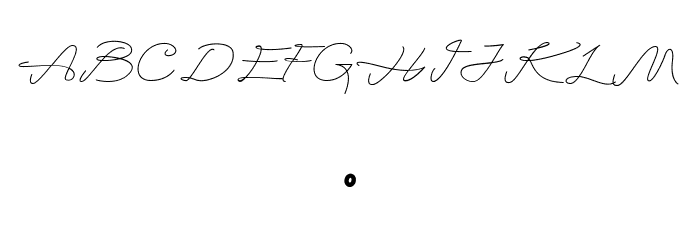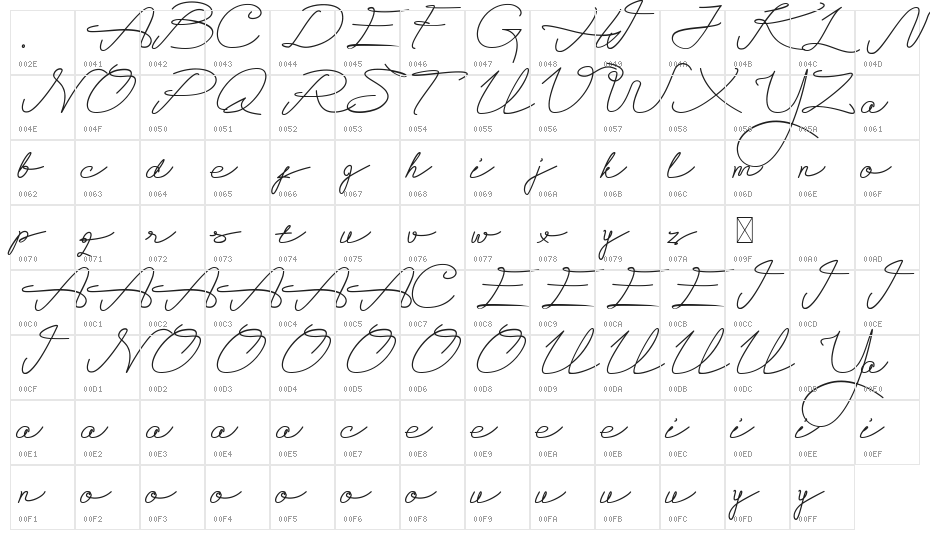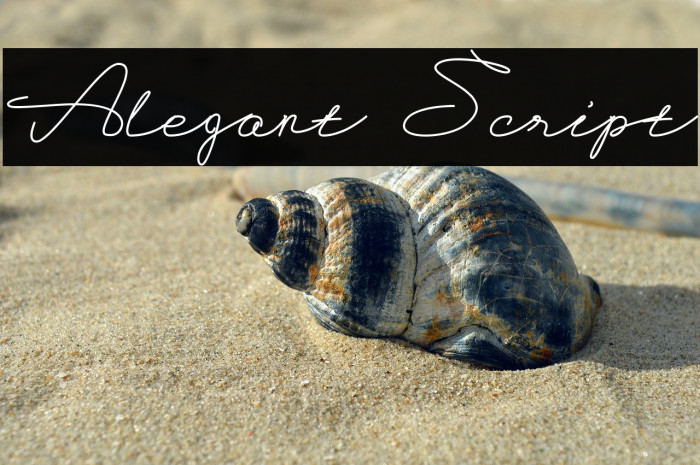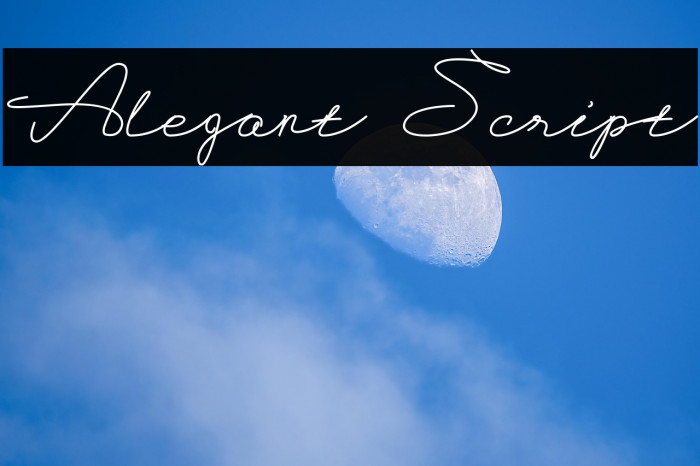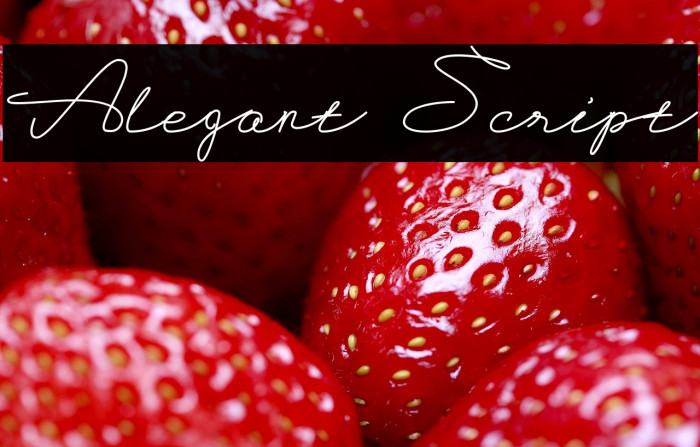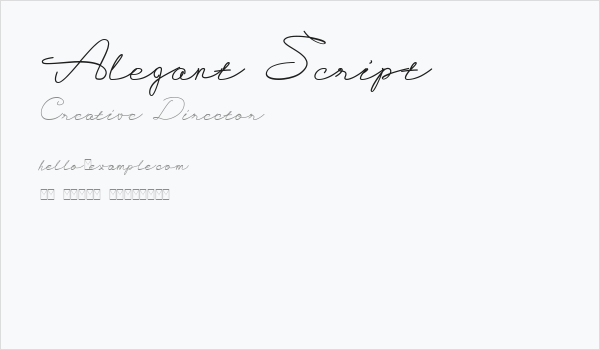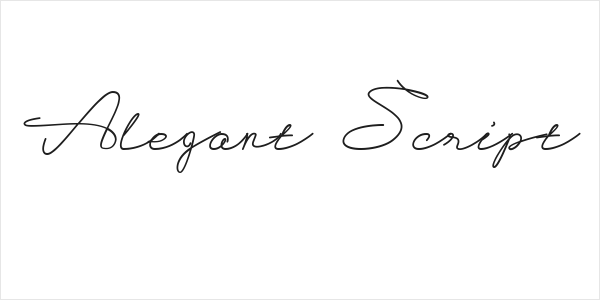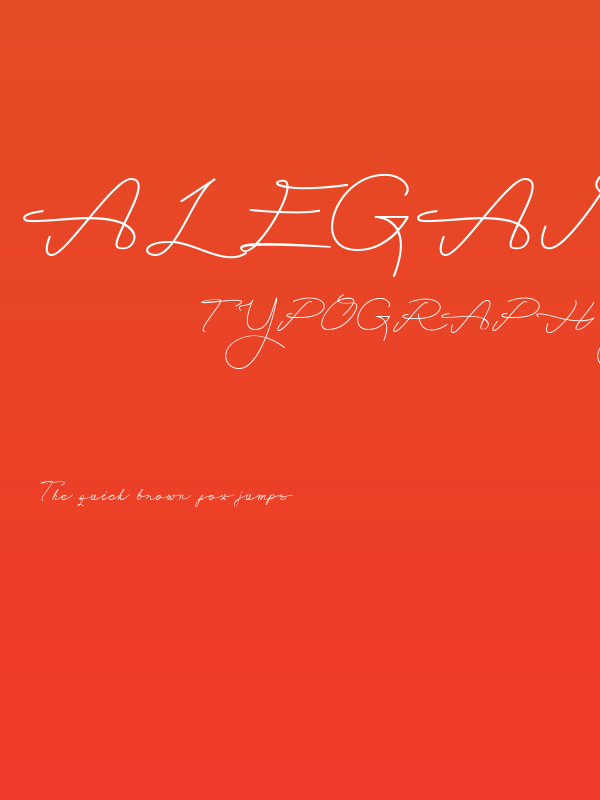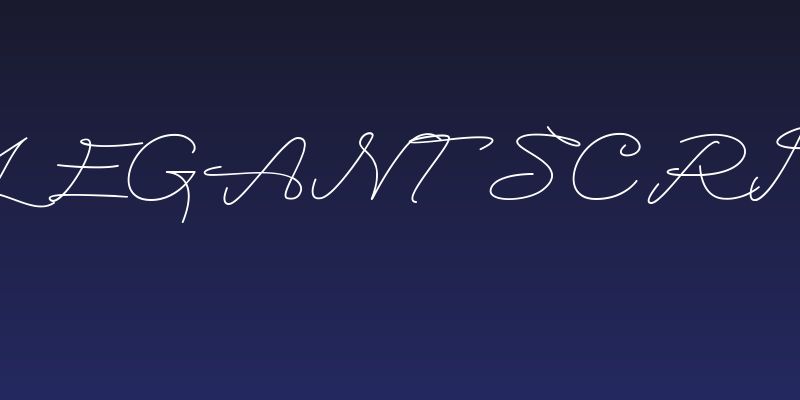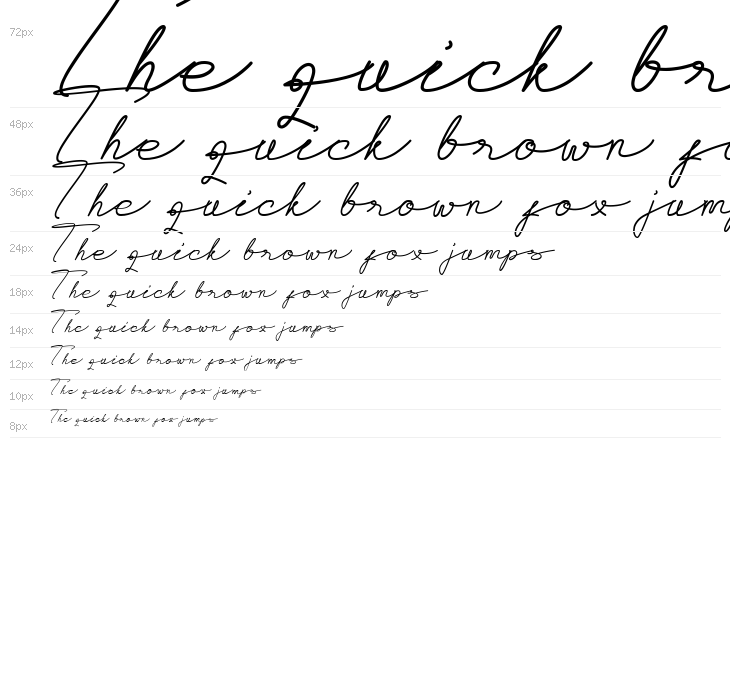
Alegant Script Font
Alegant Script Description
This font exudes elegance with its flowing, cursive style that mimics the fluidity of handwriting. The uppercase letters are characterized by their intricate loops and swirls, creating a sense of sophistication and grace. The lowercase letters maintain a consistent flow, with smooth connections between each character, enhancing readability while preserving the script's artistic flair. The font's delicate strokes and subtle variations in thickness add a touch of refinement, making it suitable for formal invitations, branding, and other projects where a touch of elegance is desired.
| Use Case | Invitations, Branding, Stationery |
| Proposed Projects | Ideal for wedding invitations, elegant branding, personal stationery, and luxury product packaging. |